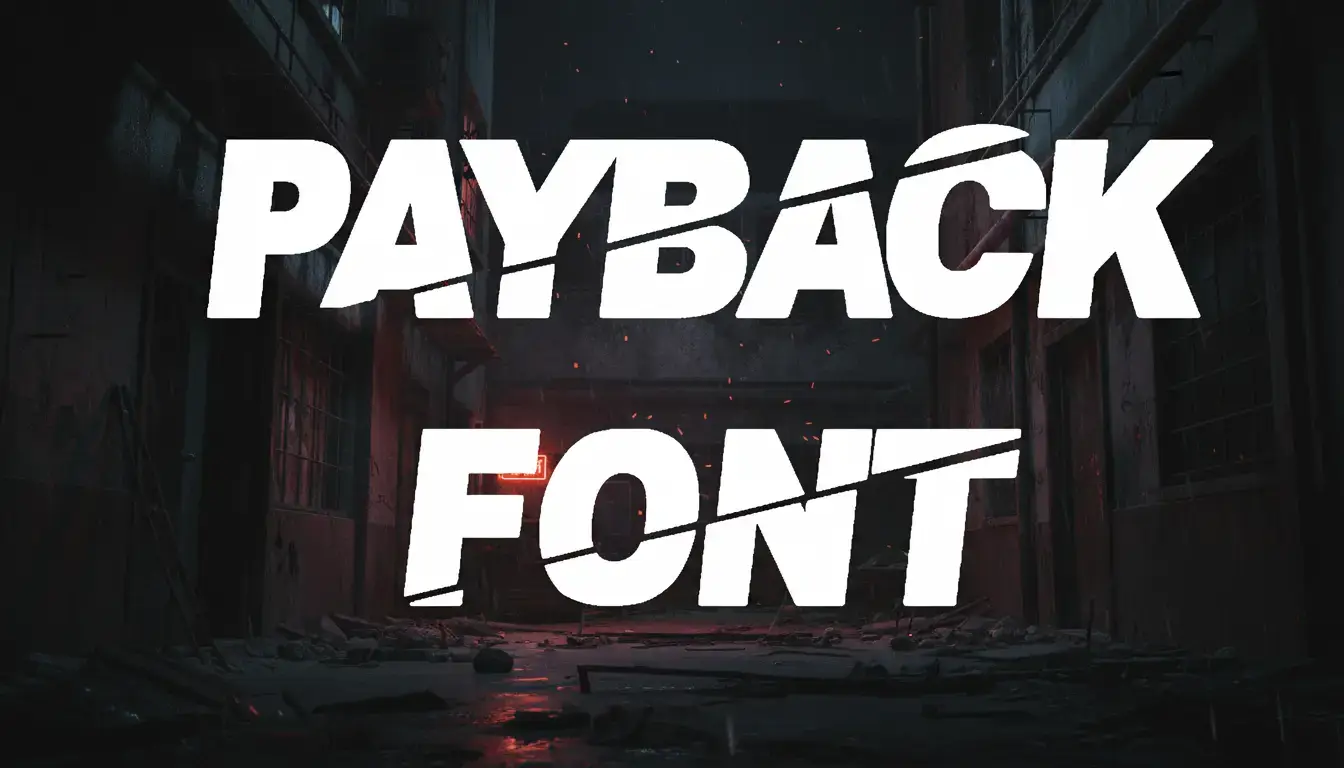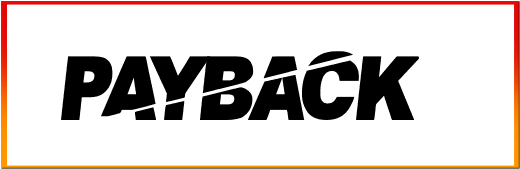
PaybAck Font
PaybAck
PaybAck is a fancy font. Bold and full of character, it's built to stand out rather than blend in. You can download it for free and test it with your own words in the preview above.
What You Can Type With PaybAck
With complete upper and lowercase letters and all ten digits, PaybAck is ready for real wording, not just a single headline. Everyday marks like &, !, ? and @ are there too. There are no accented letters like é or ñ, so it's best kept to English text.
Where PaybAck Works Best
Designers usually reach for fonts like PaybAck when they're making posters, logos and eye-catching headlines. Use it for one standout word or headline and let simpler fonts handle the rest.
No. PaybAck has no accented letters such as é, ñ or ü, so it's best for English text.